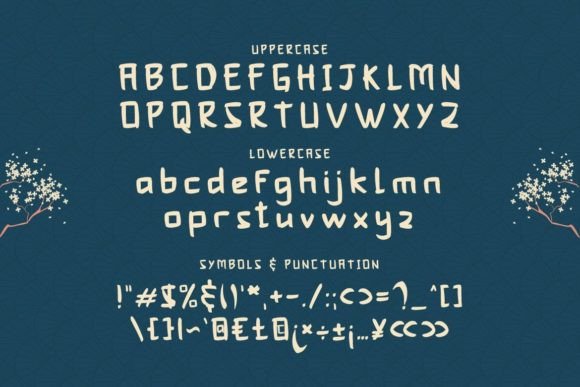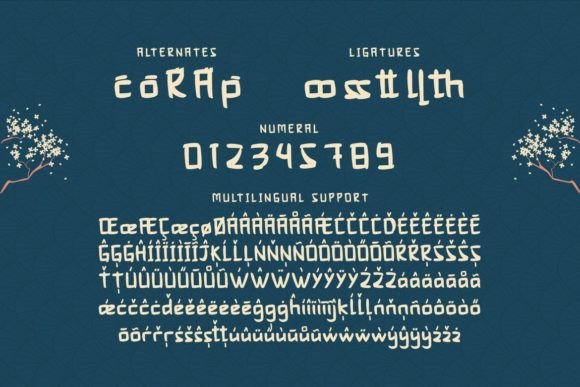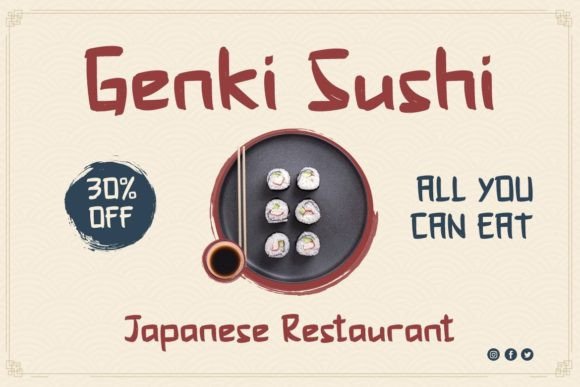
Introduction to Monigiwa Font
As a designer, you know that the perfect font can make or break a creative project. Remember the time you spent hours scouring through font libraries, only to find the perfect one that added a touch of magic to your design? That’s exactly what happens when you stumble upon the Monigiwa Font.
This simple yet elegant Japanese-inspired display font is a game-changer for any design project. With its great readability and striking appearance, Monigiwa Font is sure to elevate your designs to the next level. Whether you’re working on a restaurant brand or a high-end fashion label, Monigiwa Font is the perfect design resource to make your creations stand out.
Key Features of Monigiwa Font
- Unique, hand-drawn design suitable for creative projects requiring a high-quality, artistic touch.
- Monigiwa Font is a versatile design resource, suitable for a variety of creative projects, from logos and branding to typography and graphics.
Honest Review: Monigiwa Font
I recently had the chance to work with the Monigiwa Font in a creative project, and I must say, it was a pleasant surprise. The high quality of the font is immediately noticeable, making it a great addition to any design resource.
Here are some things that work well with the Monigiwa Font:
- ✨ Beautiful and elegant design: The font has a unique and stylish look that makes it perfect for creative projects that require a touch of sophistication.
- ⚠️ Limited character set: The font has a relatively small character set, which may be a limitation for designers who need to use a wide range of characters in their project.
- ⚠️ Not suitable for bold text: While the font looks great for body text, it may not be the best choice for bold or headline text, as it can become difficult to read at larger sizes.
Getting the Most Out of Monigiwa Font
To get the most out of Monigiwa Font, use it in combination with other design resources, and experiment with different font sizes and styles. This will help you achieve a unique and professional look in your designs.
Monigiwa Font is commonly used in various design projects, including:
- Branding and logos
- Advertising and marketing materials
- Print design and publishing
Alternatives to Monigiwa Font